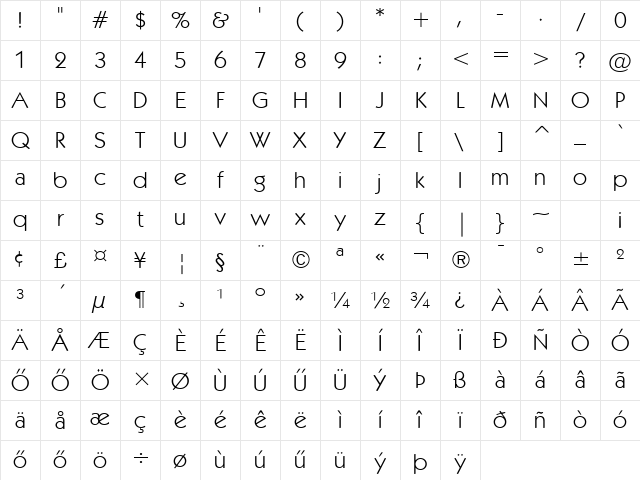
Complete Kabel BkHU Book glyph index. Displaying only characters natively supported by Kabel BkHU Book font.
Kabel BkHU is a composed and adaptable typeface that performs quietly and consistently across a wide range of design contexts.